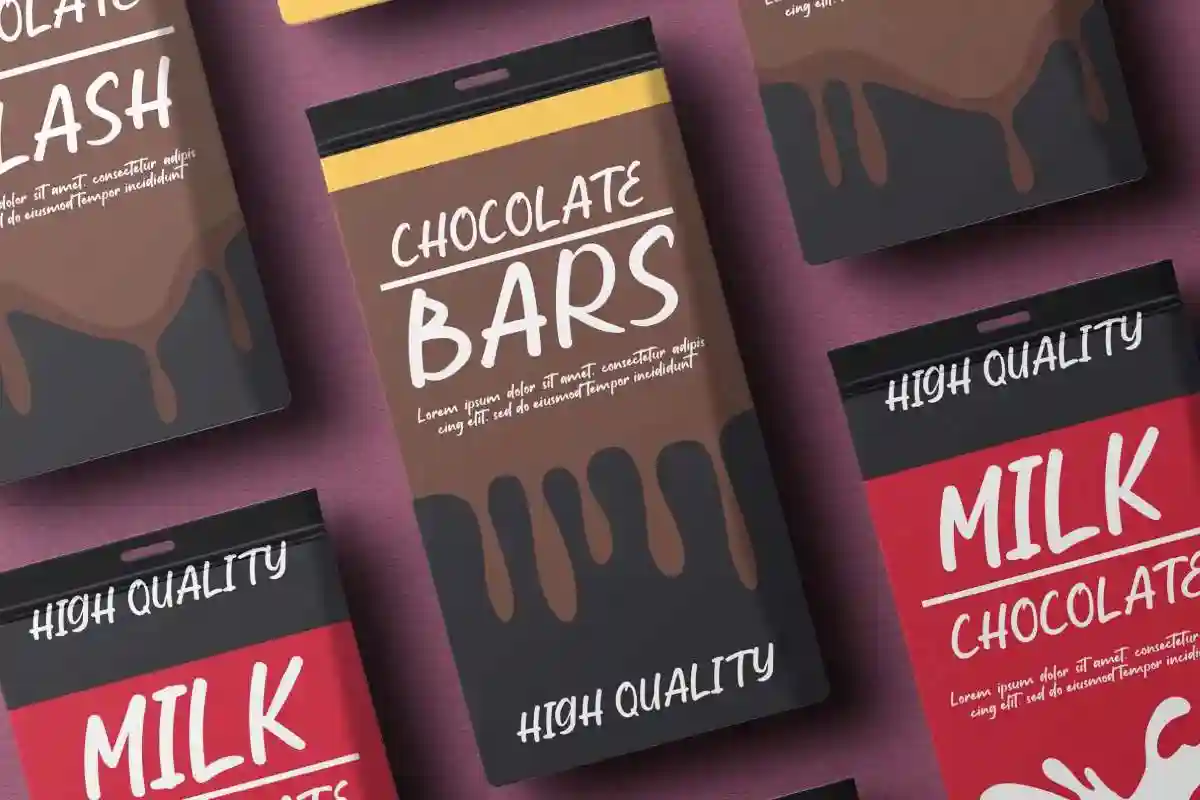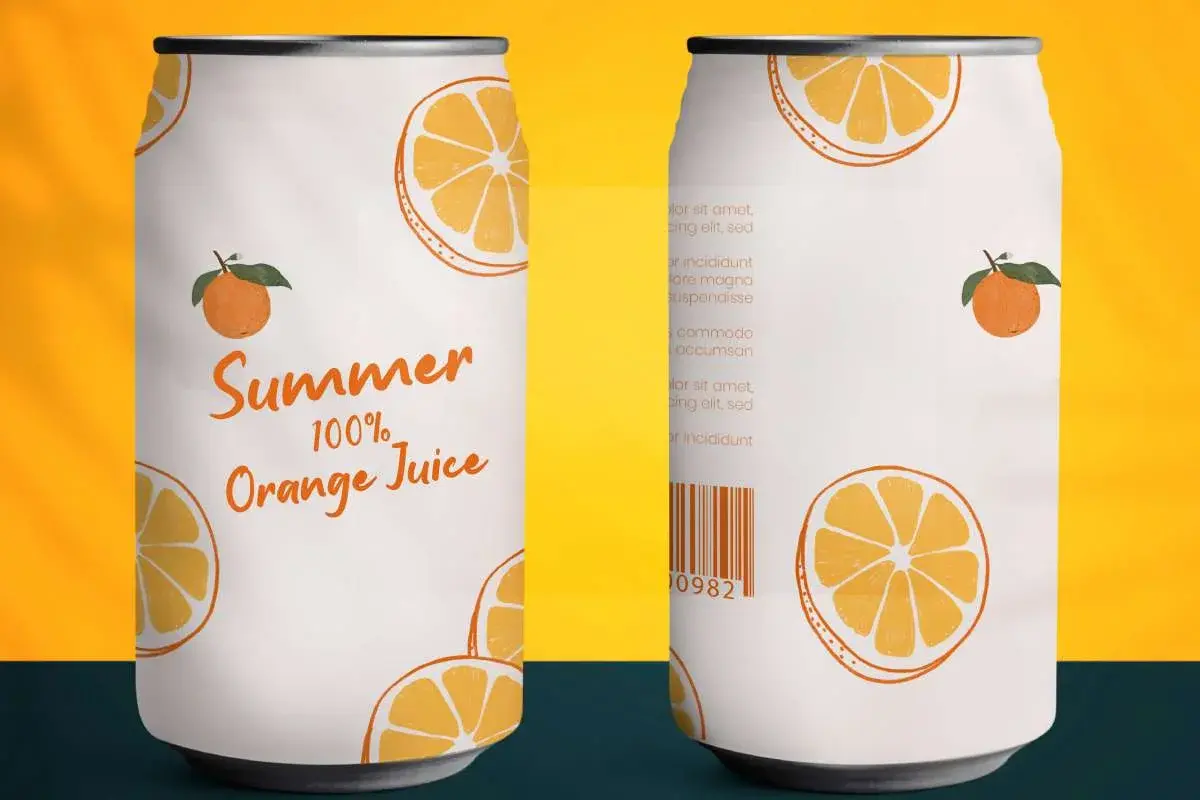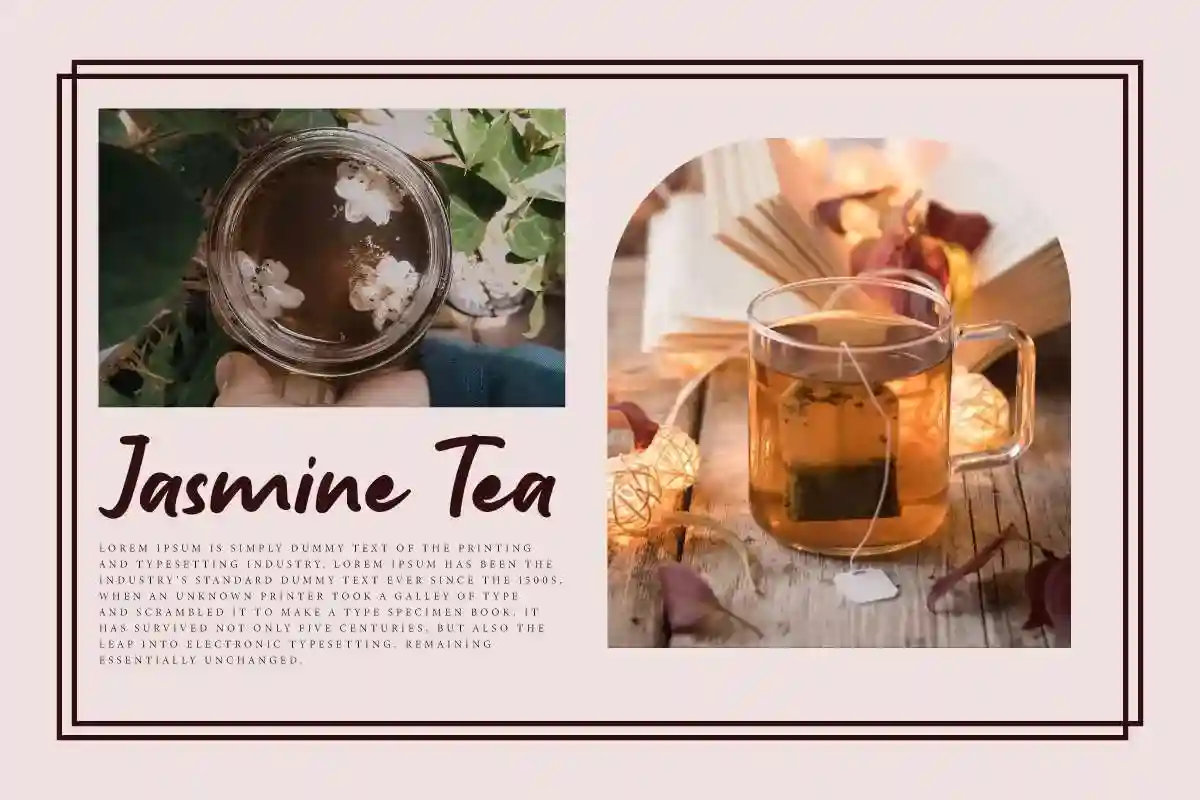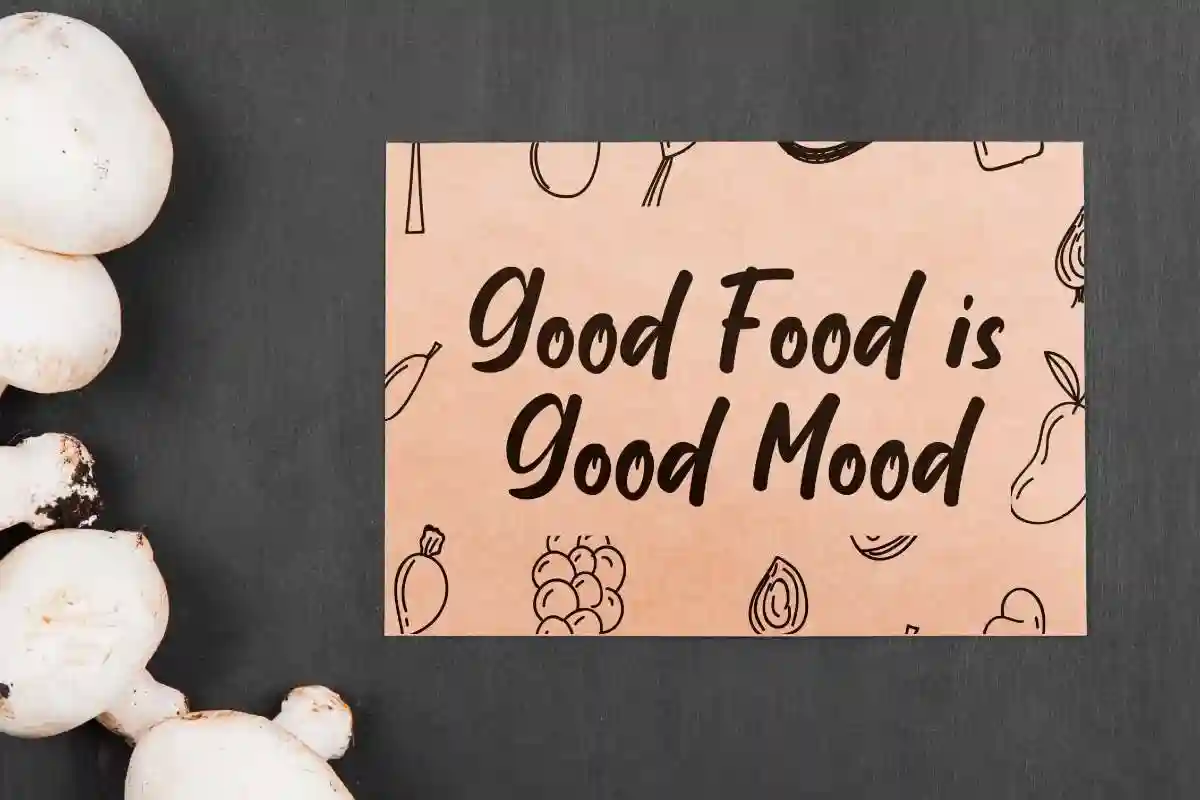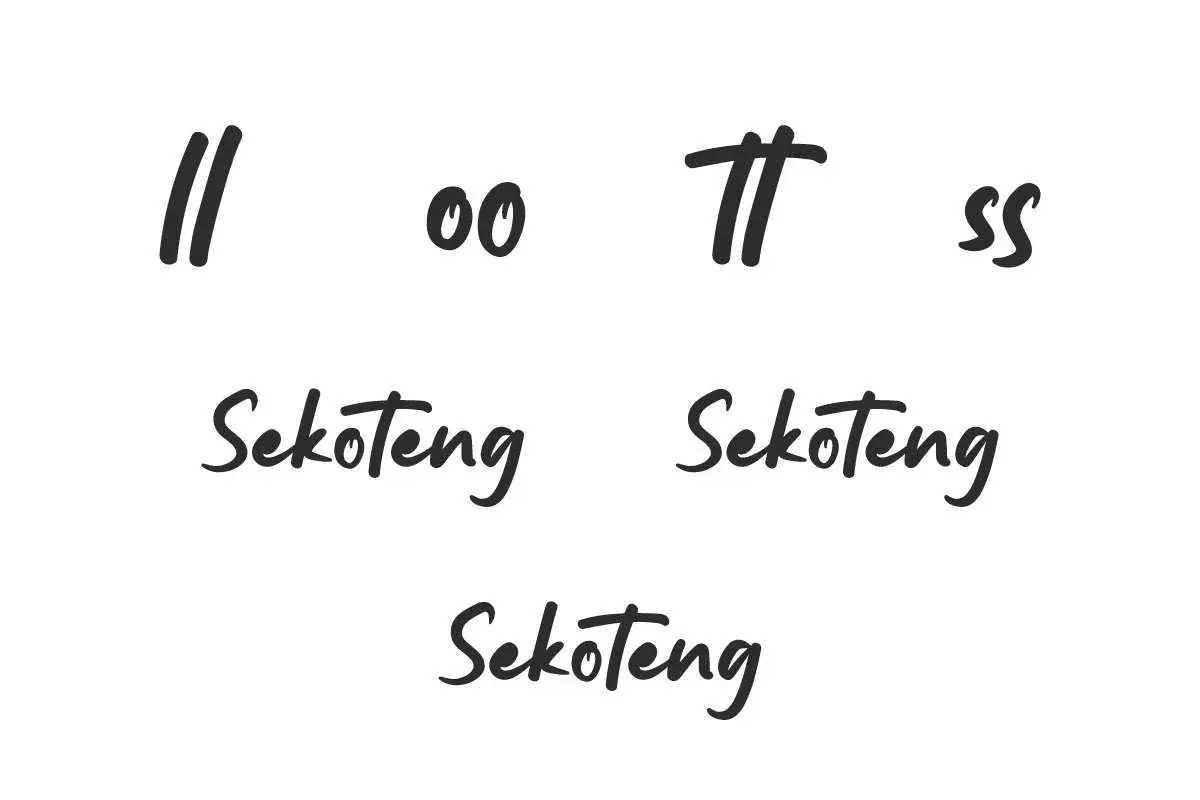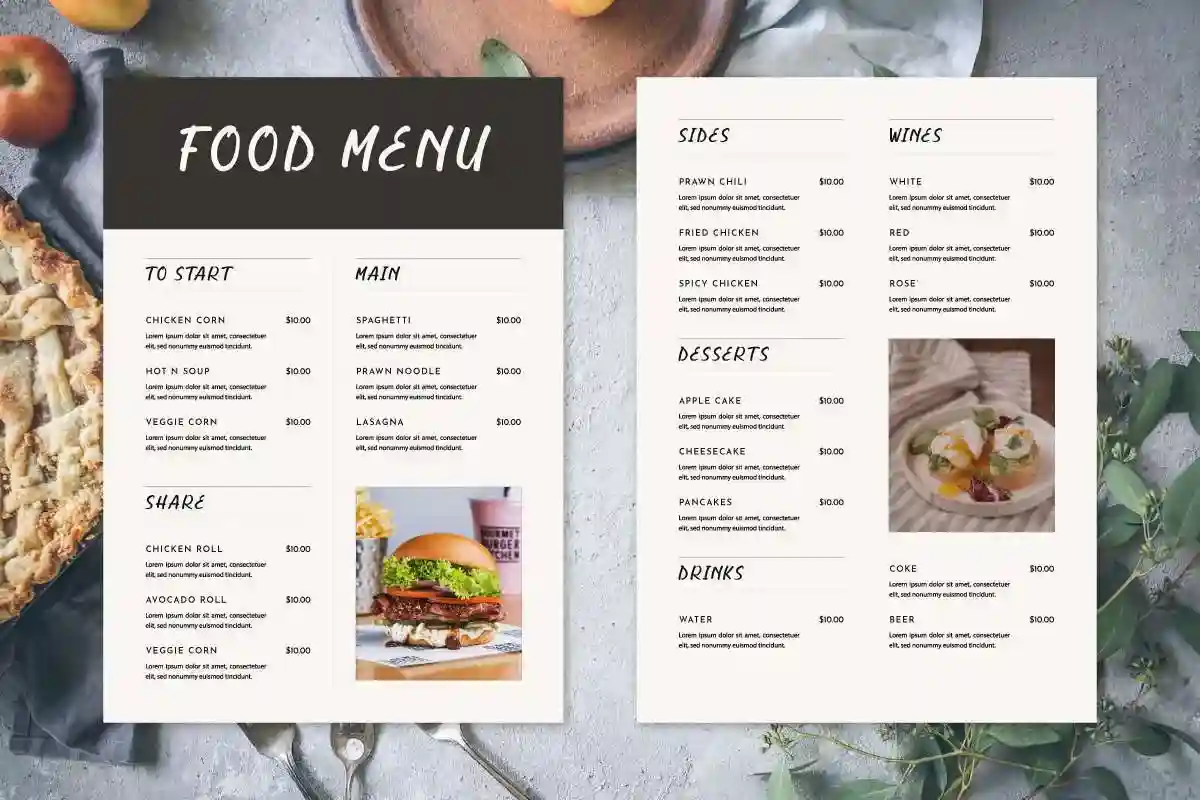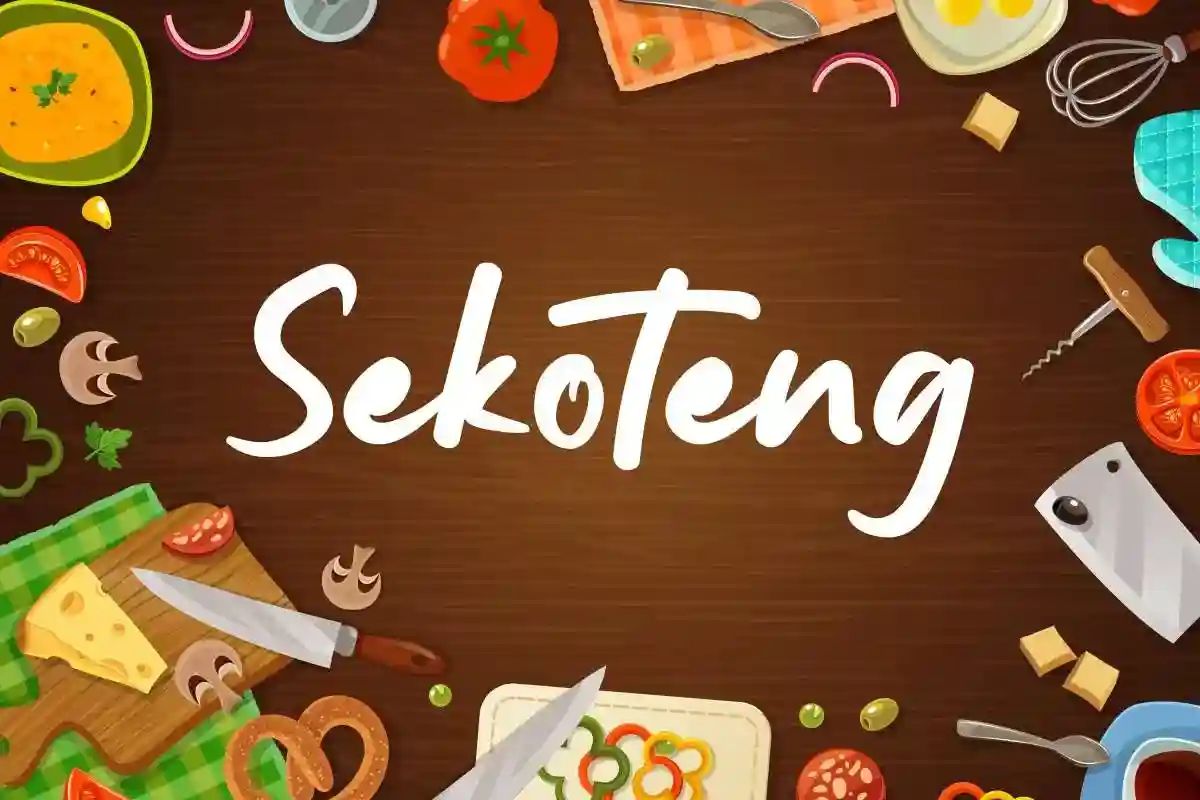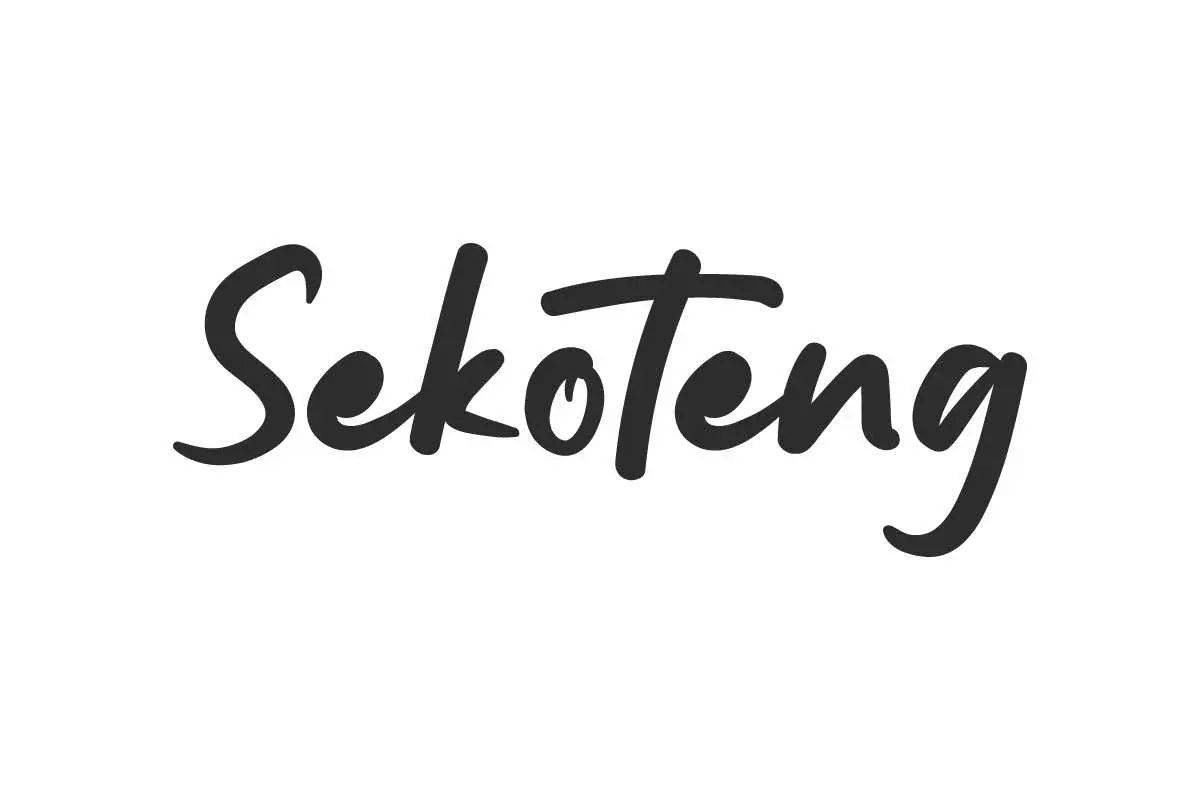
Sekoteng Sweet Font
Sekoteng Font is a thick brush script font with a simple style. Inspired from Indonesian traditional sweet dessert. The font may bring awesomeness.
Sekoteng Font is a thick brush script font with a simple style. Inspired from Indonesian traditional sweet dessert. The font may bring awesomeness. It will look more interesting for your business, such as advertisement, apparel, animated film, bakery, café, chocolate brand, creative industries, culinary, food or beverage, handicrafts, kids shop, movie, printing, publishing, restaurant, retail, school, toy, writer, and more.
Sekoteng Font includes full set of Uppercase and Lowercase Basic Characters, Number, Punctuation, Symbol, and Ligature. It’s sweet like a dessert, perfect for enhancing your designs, such as billboard, blogs, brand logo, brochure, cover, headline, invitation, label design, menu, poster, product packaging, quote, screen print, social media post, stationery, sticker, title, watermark, etc.